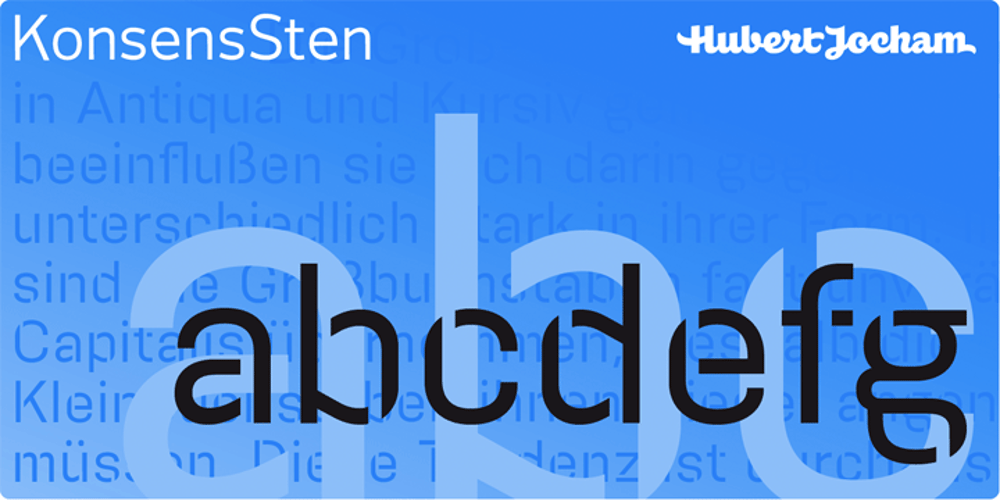
KonsensSten Font Family was designed by Hubert Jocham and published by Hubert Jocham Type. KonsensSten contains 9 styles and family package options. Germany has a strong heritage of industrial typefaces. These fonts seem like being constructed by engineers. The shapes seem to be built with circles and squares. DIN Mittelschrift is one very famous example, or the font on the old German car number plates. Since the Romain du Roi we know that it is tricky to draw a geometrical typeface. For optical reasons you have to go away from circles and lines with exactly one weight. Therefore the aim is not to construct a typeface but to draw it the way it seems constructed finally. The design of a typeface is like stage production. Like heavily made up actors the characters of a typeface must be exaggerated to work well. Particularly in small sizes.